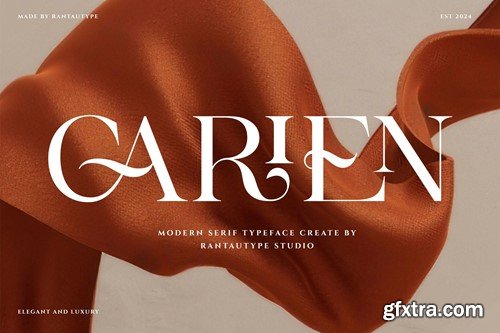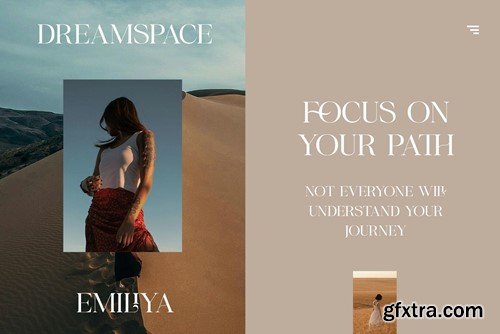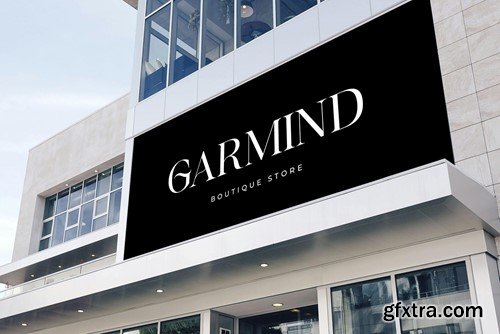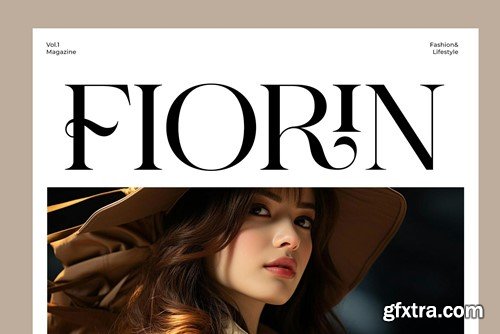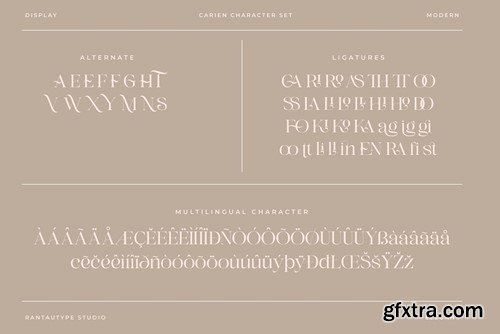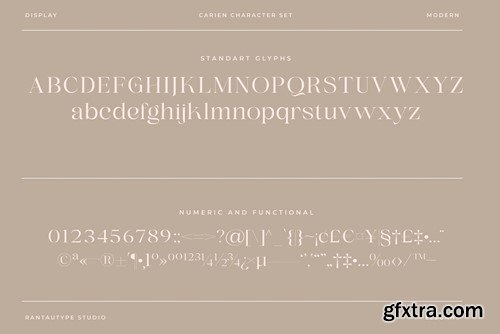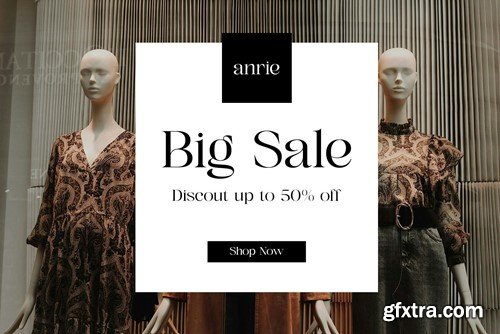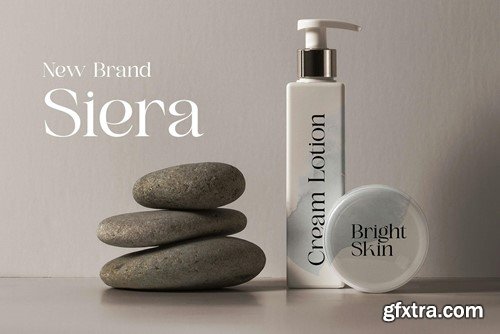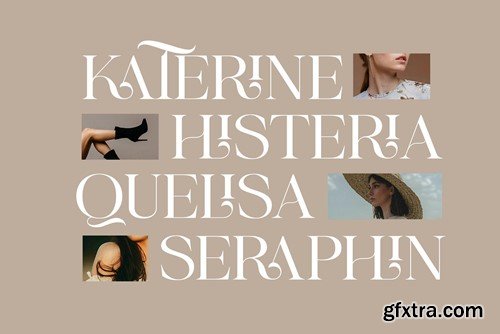
Carien A Modern Serif Font 49M5ZSR
Carien is modern, feminine, display serif font that embraces elegance and grace. Its delicate curves and refined details create a sense of sophistication and femininity. Carien come to help you make a visual design project stand out. Carien is a perfectly choice for any creative endeavor, chic, lifestyle design such as logos, advertisements, watermark on photography, stationery, branding project, display and magazine, invitation, corporate brand, product design, label, business project and many other project with elegant touch. What you have: Fonts include Multilingual Character for: Afrikaans, Albanian, Asu, Basque, Bemba, Bena, Breton, Chiga, Cornish, Dutch, English, Estonian, Filipino, Finnish, Friulian, Galician, Gusii, Indonesian, Irish, Italian, Kabuverdianu, Kalenjin, Kinyarwanda, Luo, Luxembourgish, Luyia, Machame, Makhuwa-Meetto, Makonde, Malagasy, Manx, Morisyen, North, Ndebele, Nyankole, Oromo, Portuguese, Quechua, Romansh, Rombo, Rundi, Rwa, Samburu, Sango, Sangu, Scottish, Gaelic, Sena, Shambala, Shona, Soga, Somali, Spanish, Swahili, Swedish, Swiss, German. Thank you for your purchase! Hope you enjoy with our font!